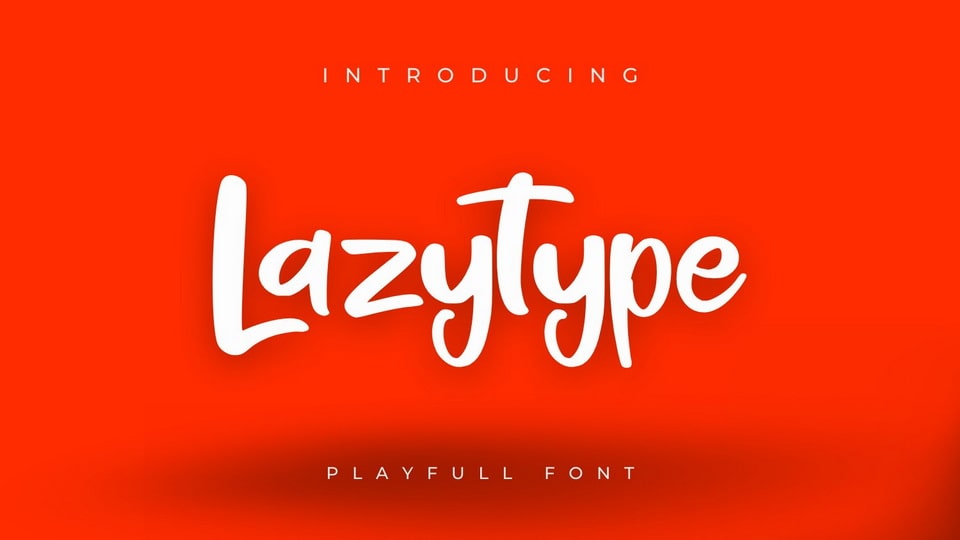
Download LazyType font, a playful typeface packed with personality and designed to add a dash of whimsy and a whole lot of charm to everything you create.